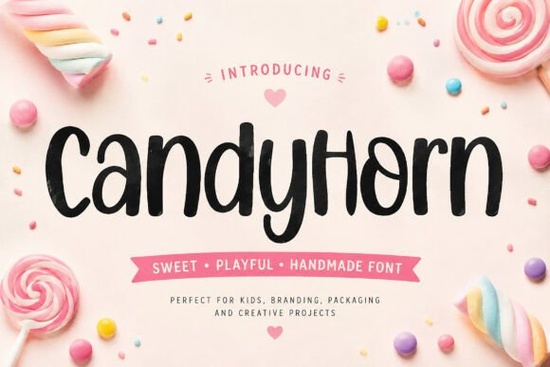
If you're looking for a friendly, hand-drawn display font that feels warm and inviting not stiff or overly polished Candyhorn Font is worth your attention. It’s designed with soft curves, uneven baselines, and subtle texture that mimics real marker or brush lettering. You’ll notice it right away in birthday invites, bakery labels, or kids’ activity sheets: it doesn’t shout, but it does smile. And because it’s built for both screen and print, you can use it confidently on Instagram posts, vinyl stickers, greeting cards, or even embroidered patches (with proper vector conversion).
When does Candyhorn Font work best?
This isn’t a font for legal disclaimers or dense body text it shines where personality matters most. Think of projects where tone and feeling carry as much weight as the words themselves:
- Bakery branding (cupcake shop logos, chalkboard-style menu boards)
- Kids’ party supplies (invitations, favor tags, printable coloring pages)
- Small-batch candy or snack packaging (especially gummy bears, lollipops, or retro sweets)
- Social media graphics for crafty small businesses (think “Handmade with Love” banners or seasonal sale announcements)
- DIY sticker sheets, planner inserts, or printable wall art for nurseries and playrooms
What makes it stand out from other playful fonts is how intentionally unrefined it feels without looking sloppy. The lowercase “a”, “g”, and “y” have gentle quirks; some letters tilt slightly, others swell at the ends like ink pooling on paper. That handmade quality helps your designs feel personal and approachable, especially if you’re a solo maker or micro-brand building trust through authenticity.
How does it compare to similar display fonts?
It shares shelf space with other cheerful, hand-lettered options but each has its own flavor. Santa Sugar Font, for example, leans into holiday charm with bolder swashes and candy-cane-inspired flourishes, making it ideal for Christmas markets or festive Etsy listings. Chonkster Font goes chunkier and rounder, great for bold signage or toddler-themed apparel. If you’re working on something spookier but still sweet like Halloween cupcakes or a “Boo-tiful Bakery” promo Spookify Font adds just enough whimsical eeriness without losing warmth. And for elegant-but-playful contrast (say, pairing a delicate script with a fun display font), Unibelle Font offers clean curves and airy spacing that balances Candyhorn’s cozy density.
Practical tips for using Candyhorn Font well
Like most display fonts, Candyhorn works best at larger sizes 18pt and up for digital, 24pt+ for print. Avoid tight tracking (letter spacing) unless you’re going for intentional squishiness (e.g., a “JUMBLE” banner). For readability in longer phrases, stick to short headlines, product names, or callouts not full paragraphs.
One thing to keep in mind: while Candyhorn includes uppercase, lowercase, numerals, and basic punctuation, it doesn’t support extended Latin characters (like accented letters for Spanish or French). So if you’re designing bilingual kids’ books or international candy packaging, double-check coverage before committing.
- ✅ You need a friendly, hand-drawn look not ultra-modern or minimalist
- ✅ Your project uses short text (logos, headers, labels, social tiles)
- ✅ You’ll use it across both digital and printed formats
- ❌ You don’t need multilingual character support out of the box
If those match up, Candyhorn Font is likely a thoughtful, low-risk addition to your toolkit especially if you serve joyful, tactile, or family-centered audiences.